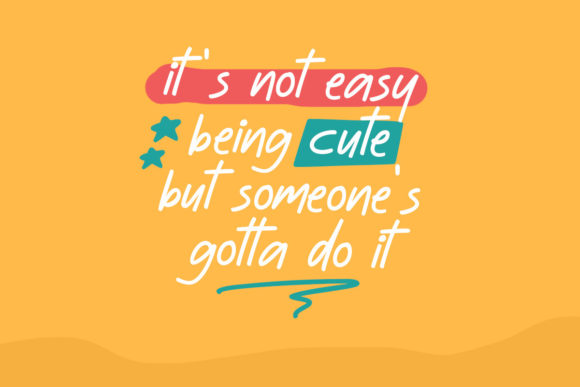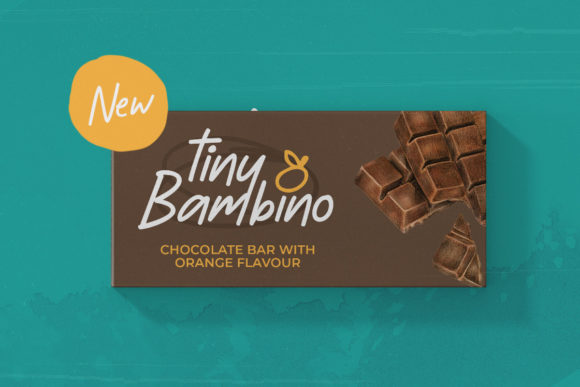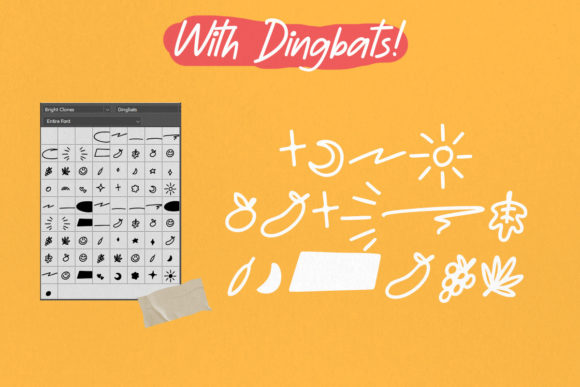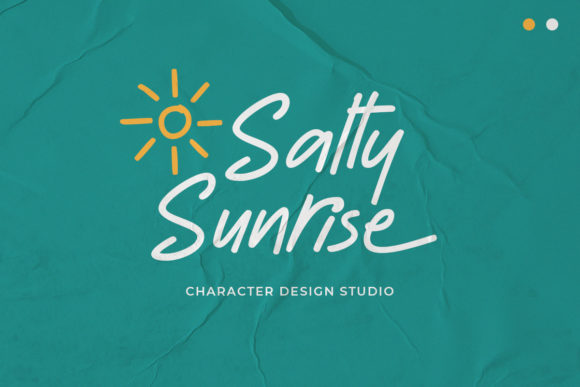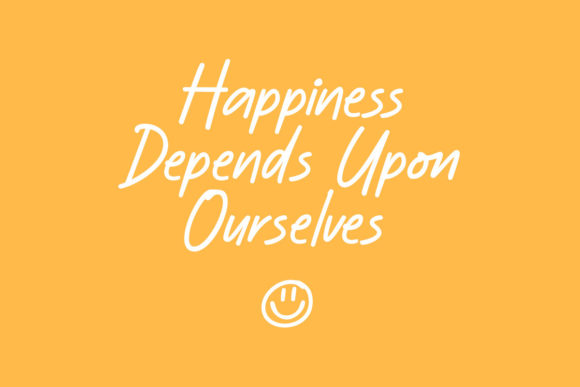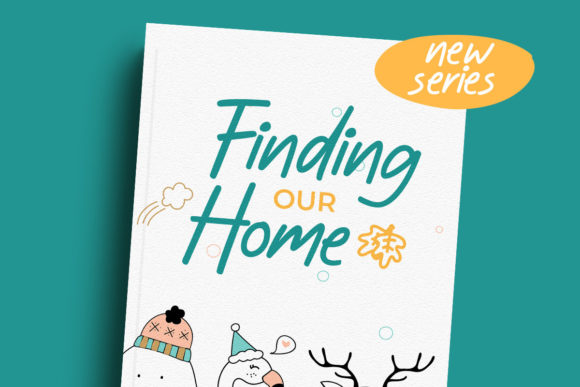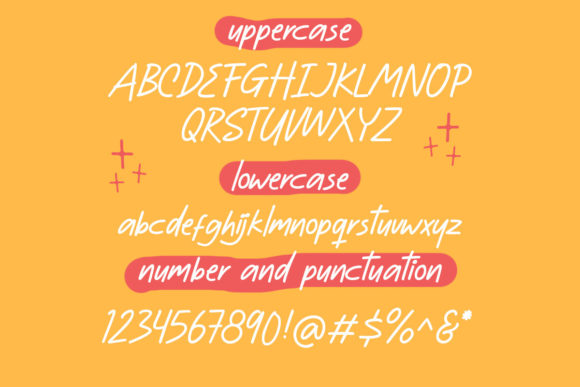
About Bright Clones Font
Bright Clones is a delightful and friendly handwritten font that brings a playful and whimsical touch to your designs. With its cute doodle elements, this font adds a touch of fun and creativity to any project. Whether you’re designing greeting cards, invitations, posters, or any other creative work, Bright Clones will make your ideas come to life in a unique and engaging way.
The handwritten style of Bright Clones exudes a warm and personal feel, making it perfect for adding a friendly and approachable vibe to your designs. Each letter is crafted with care, showcasing the authentic and organic nature of handwriting. This font captures the spontaneity and uniqueness of hand-drawn elements, giving your designs a personal and human touch.
The cute doodle elements in Bright Clones offer endless possibilities for creativity. From whimsical shapes and illustrations to playful accents and ornaments, these elements allow you to customize and enhance your designs with ease. They add an extra layer of visual interest and charm, making your creations stand out and leave a lasting impression.
Bright Clones is versatile and can be used in various design projects. Whether you’re creating branding materials, social media graphics, packaging, or any other visual content, this font will bring a joyful and realistic feel to your designs. It works well in both digital and print mediums, adapting seamlessly to different contexts.
Embrace the creativity and playfulness of Bright Clones in your design projects. Let its friendly handwritten style and cute doodle elements bring your ideas to life and create spectacular designs that capture attention and resonate with your audience. Whether you’re aiming for a lighthearted and fun look or a whimsical and imaginative atmosphere, Bright Clones is the perfect companion to make your designs shine.